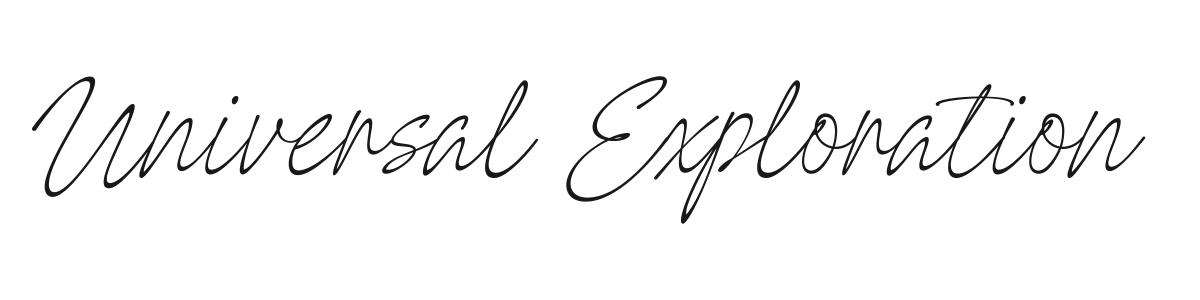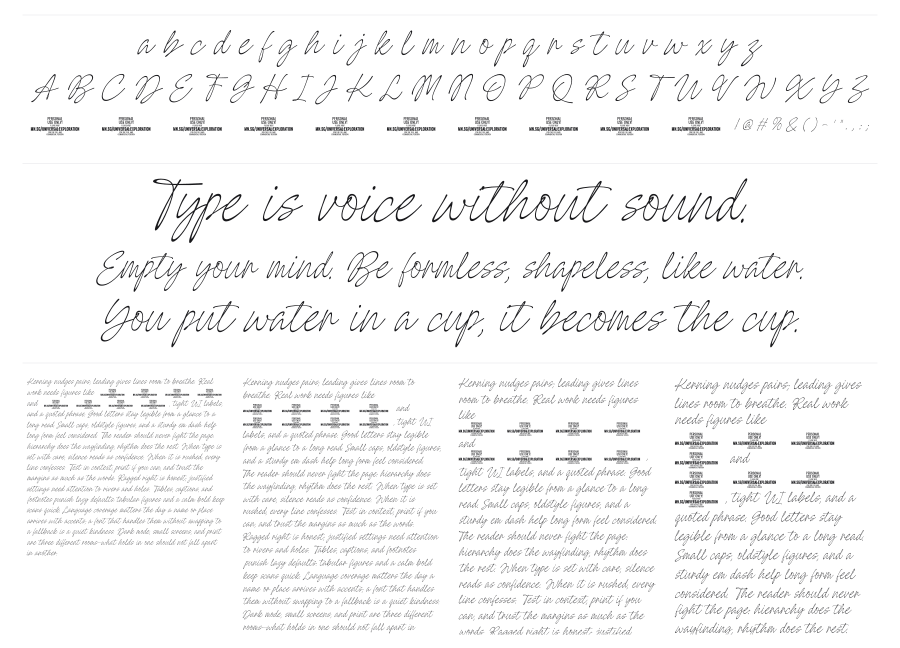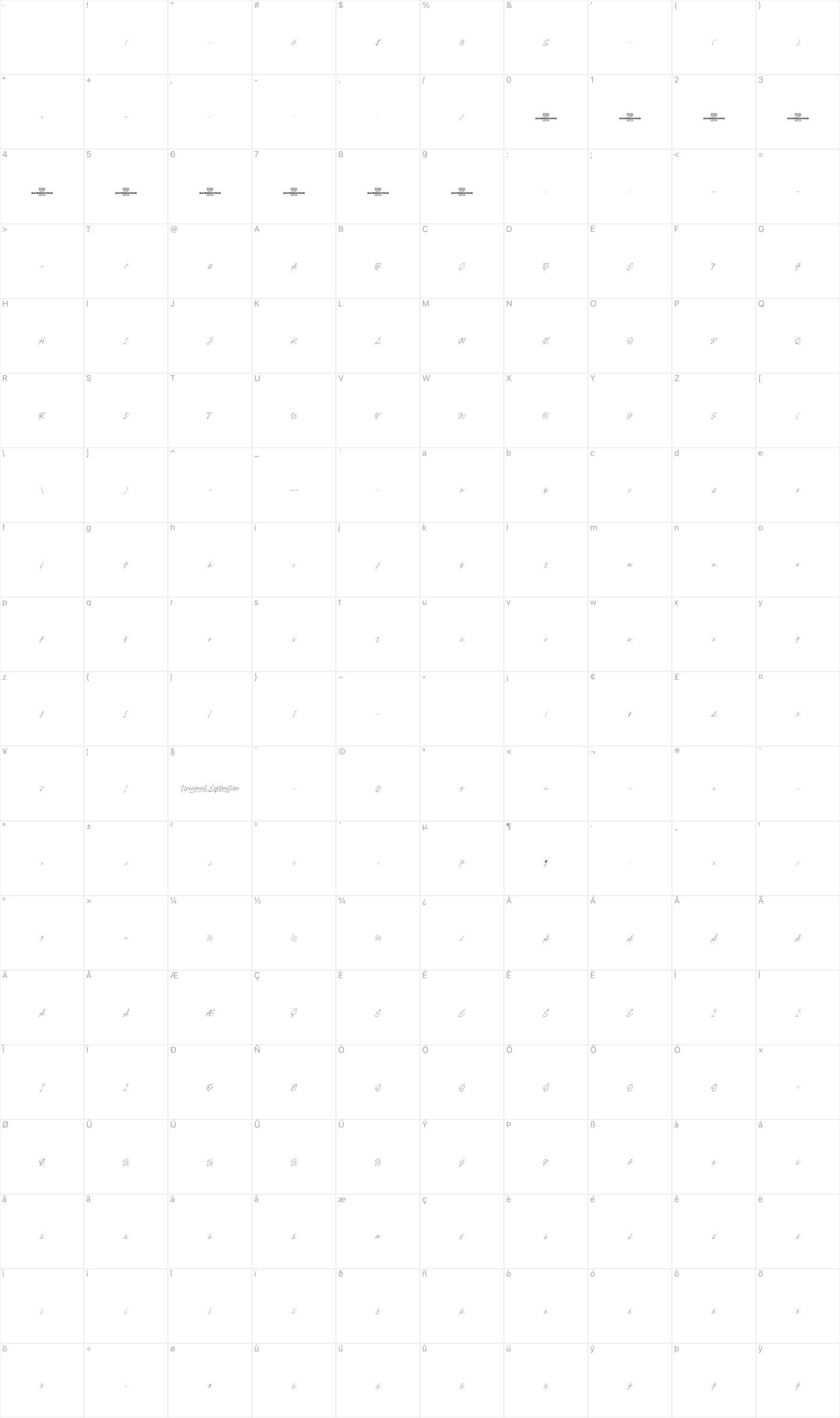
Universal Exploration
Universal Exploration is a flowing ink-script with the natural rhythm of a well-practiced signature. Stroke weight shifts organically between thin hairlines and slightly heavier curves, and the generous looping forms connect seamlessly across entire words. OpenType alternates and swash underscores add extra customization for headlines, branding, and personal stationery.